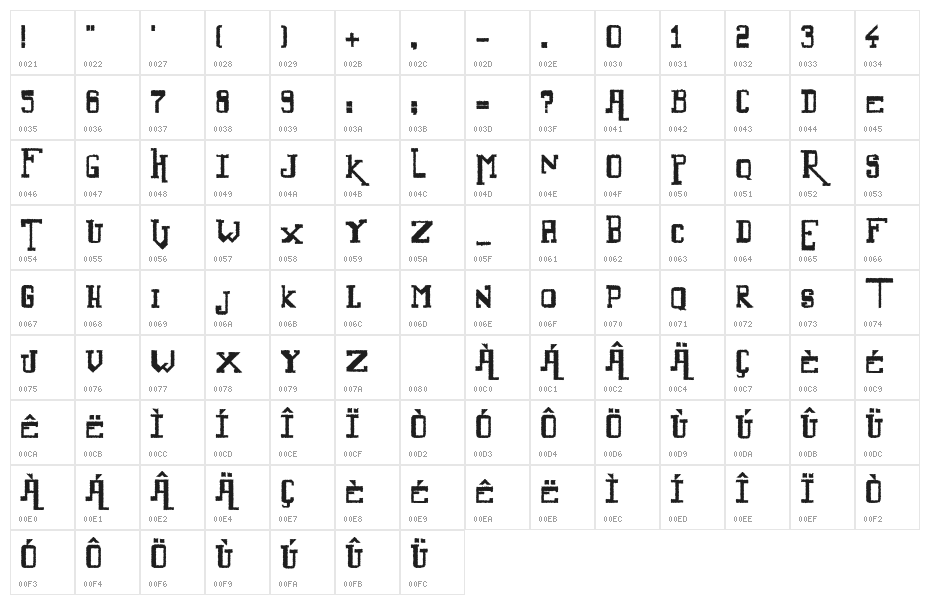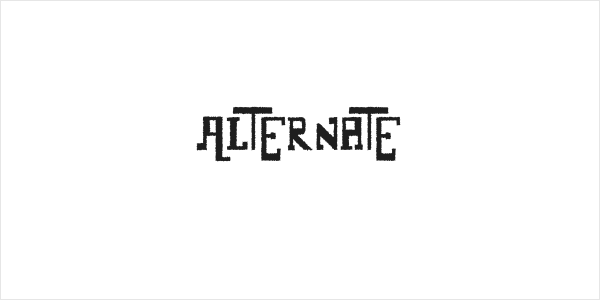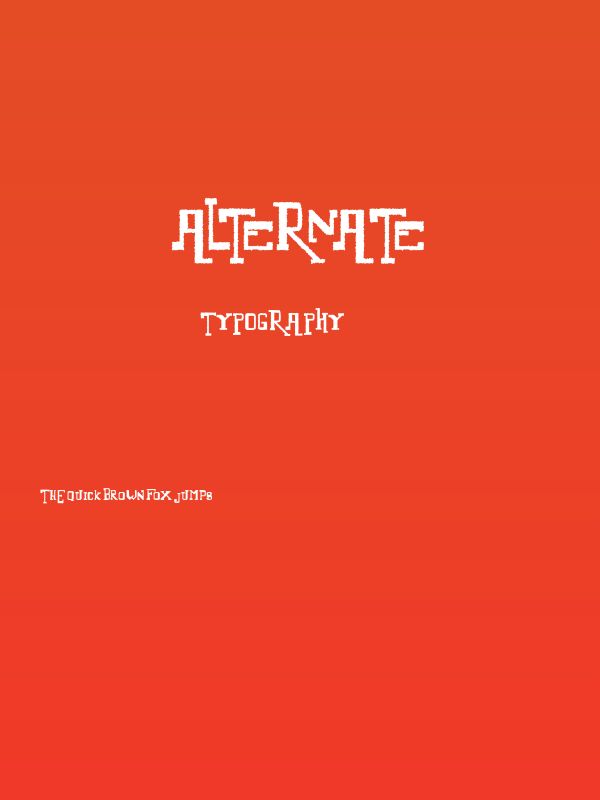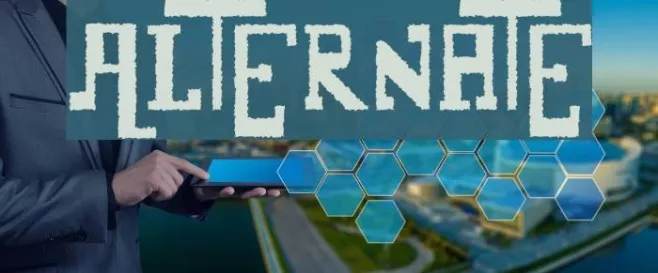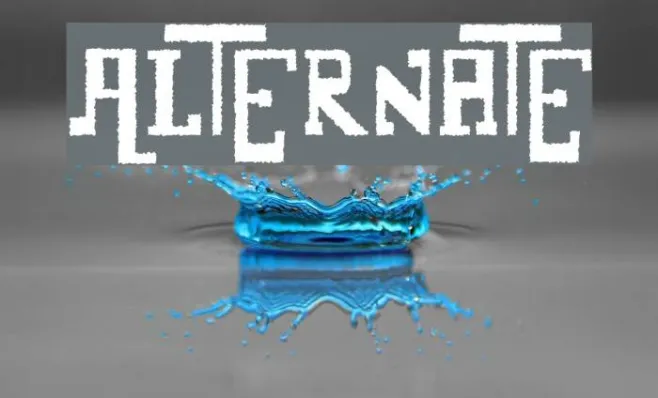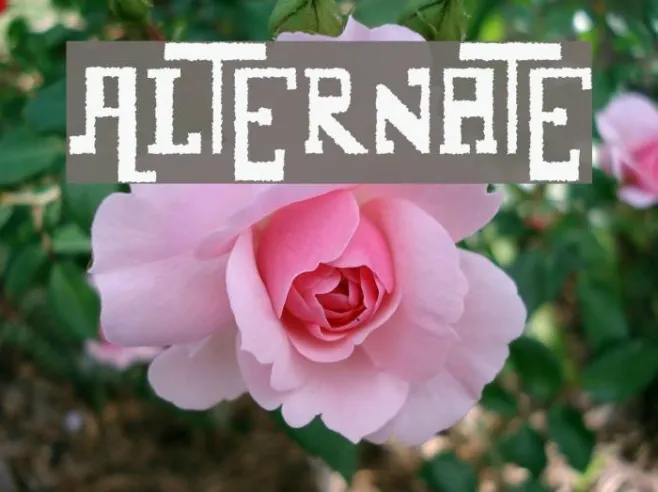
Alternate Font
Alternate Description
This font exhibits a bold and rugged style, characterized by its thick, blocky letterforms and uneven edges, giving it a hand-crafted appearance. The uppercase letters are distinct with sharp angles and a slightly condensed form, while the lowercase letters maintain a consistent height and width, adding to the uniformity. The numerals are robust and match the boldness of the alphabet, ensuring readability. Special characters are uniquely styled, maintaining the overall aesthetic. The font's rough texture and irregular lines suggest a vintage or rustic feel, making it suitable for designs that require a touch of authenticity and boldness.
| Proposed Projects | Ideal for poster designs, branding for rustic or vintage-themed products, and any project requiring a bold, eye-catching typeface. |